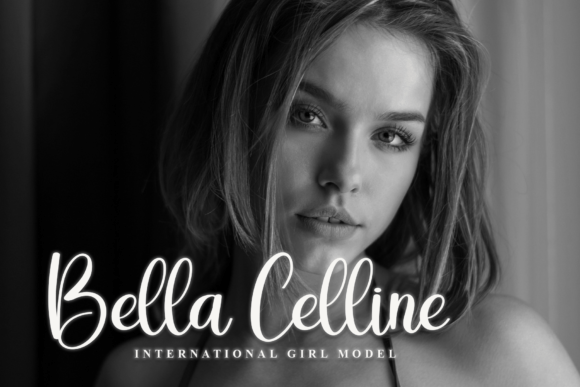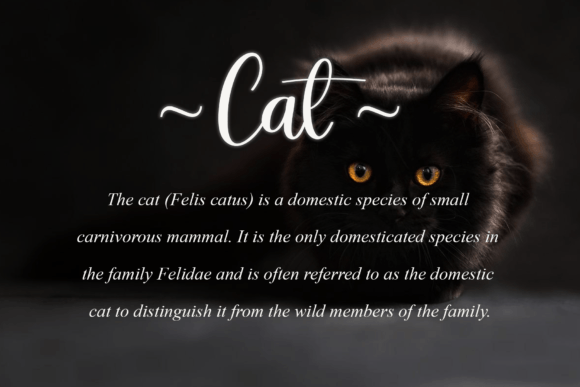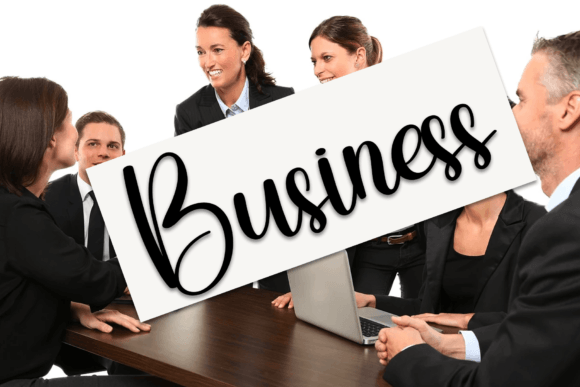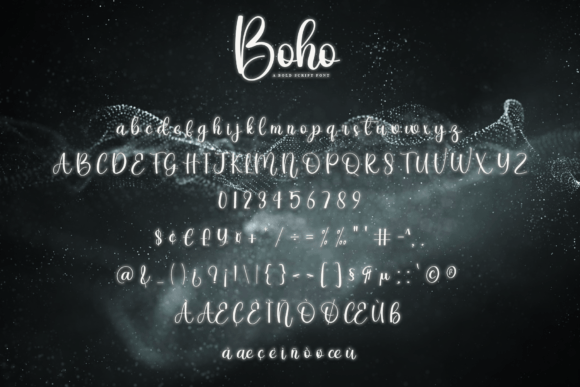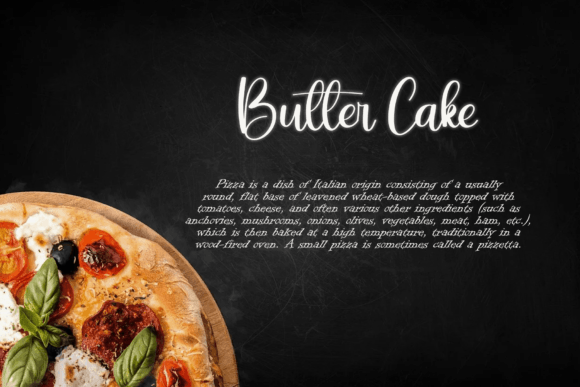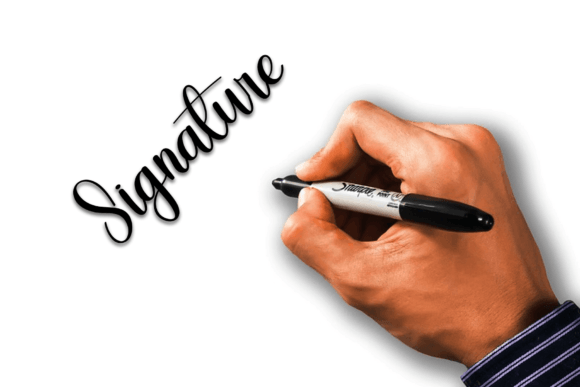
The Boho Font: A Unique, Handwritten Gem for Creative Projects
I’ll never forget the design struggle I faced while working on a wedding invitation project. My client wanted a font that was elegant, yet playful; something that would capture the essence of their special day. After scouring the internet for hours, I stumbled upon the Boho font. It was love at first sight! 💕 This unique, round-lettered handwritten font has since become a staple in my design toolkit, and I’m excited to share its beauty with you.
- Unique and eye-catching design that’s perfect for titles, invitations, and letters
- Carefully crafted to produce high-quality results, even at large font sizes
- Versatile and adaptable to various design styles and themes
- Supports OpenType features, glyphs, and stylistic alternates for added creativity
- May not be suitable for body text or long-form content due to its decorative nature
- Some characters may require manual kerning for optimal spacing
- Limited availability of font weights, which may restrict design flexibility
The Story Behind Boho Font: Designer Inspiration
Boho font was crafted with love by a talented type designer who sought to create a unique, handwritten font that would inspire creativity. With a passion for calligraphy and lettering, the designer carefully crafted each character to ensure a beautiful, cohesive look. The result is a font that’s both elegant and playful, perfect for a wide range of design projects.
Q: What is the Boho font best suited for?
A: Boho font is ideal for titles, invitations, letters, and other creative projects where a unique, handwritten look is desired.